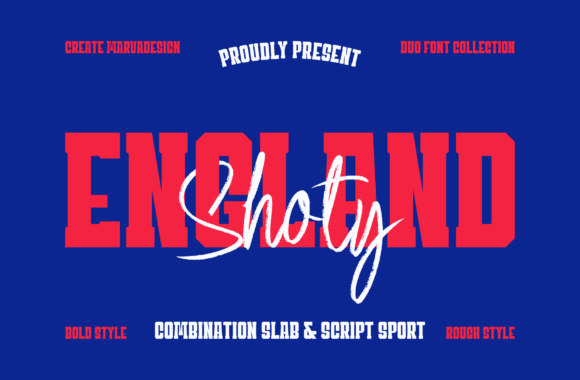
England Shoty Font: A Dynamic Duo for Sports Branding
The England Shoty Font is a bold and dynamic duo of fonts designed to blend athletic energy with expressive flair. This font set is perfect for sports branding, collegiate themes, and promotional materials, offering a striking visual identity that balances strength and elegance.
Overview of England Shoty Font
The England Shoty Font features two distinct typefaces: a Slab Serif Sport Style font and a Rough Brush Script font. This combination creates a unique visual identity that is both strong and elegant, making it ideal for athletic logos, team merchandise, and promotional materials.
Slab Serif Sport Style Font
The Slab Serif Sport Style font is characterized by strong, blocky, geometric letterforms that are ideal for sports branding and collegiate themes. This font features:
- Strong and bold letterforms: The Slab Serif Sport Style font features strong, bold letterforms that are perfect for creating eye-catching athletic logos and branding materials.
- Geometric design: The font’s geometric design gives it a modern and sleek look that is perfect for sports teams and athletic brands.
- High legibility: The Slab Serif Sport Style font has high legibility, making it easy to read even at small sizes.
Rough Brush Script Font
The Rough Brush Script font adds a sense of movement and personality to the England Shoty Font set. This font features:
- Hand-drawn, textured strokes: The Rough Brush Script font features hand-drawn, textured strokes that give it a unique and expressive look.
- Dynamic and energetic feel: The font’s dynamic and energetic feel makes it perfect for creating promotional materials and advertising campaigns.
- Personality and flair: The Rough Brush Script font adds a touch of personality and flair to any design, making it stand out from the crowd.
Color Palette and Typographic Layouts
The England Shoty Font set exudes the confidence and aesthetic of old-school American sports, with a color palette and typographic layouts that emphasize its bold, competitive spirit. The font set features:
- Bold and vibrant colors: The color palette features bold and vibrant colors that are perfect for sports branding and promotional materials.
- Dynamic typographic layouts: The typographic layouts are designed to create a sense of movement and energy, making them perfect for athletic logos and branding materials.
Perfect for Athletic Logos and Branding Materials
The England Shoty Font set is perfect for athletic logos, team merchandise, and promotional materials. The font set’s bold and dynamic design makes it ideal for:
- Athletic logos: The Slab Serif Sport Style font is perfect for creating strong and bold athletic logos.
- Team merchandise: The font set’s dynamic and energetic feel makes it perfect for creating team merchandise such as t-shirts, hats, and jerseys.
- Promotional materials: The Rough Brush Script font is perfect for creating promotional materials such as flyers, posters, and brochures.
Key Features of England Shoty Font
The England Shoty Font set has several key features that make it perfect for sports branding and promotional materials. These features include:
- Bold and dynamic design: The font set’s bold and dynamic design makes it perfect for athletic logos and branding materials.
- High legibility: The Slab Serif Sport Style font has high legibility, making it easy to read even at small sizes.
- Unique and expressive look: The Rough Brush Script font features hand-drawn, textured strokes that give it a unique and expressive look.
Why Choose England Shoty Font?
There are several reasons why you should choose the England Shoty Font set for your sports branding and promotional materials. These reasons include:
- Perfect for sports branding: The font set’s bold and dynamic design makes it perfect for sports branding and collegiate themes.
- High-quality design: The font set features high-quality design that is both unique and expressive.
- Easy to use: The font set is easy to use and can be easily integrated into your design workflow.
The England Shoty Font set is a bold and dynamic duo of fonts designed to blend athletic energy with expressive flair. The font set’s unique combination of a Slab Serif Sport Style font and a Rough Brush Script font makes it perfect for sports branding, collegiate themes, and promotional materials. With its bold and dynamic design, high legibility, and unique and expressive look, the England Shoty Font set is the perfect choice for any sports team or athletic brand looking to create a striking visual identity.